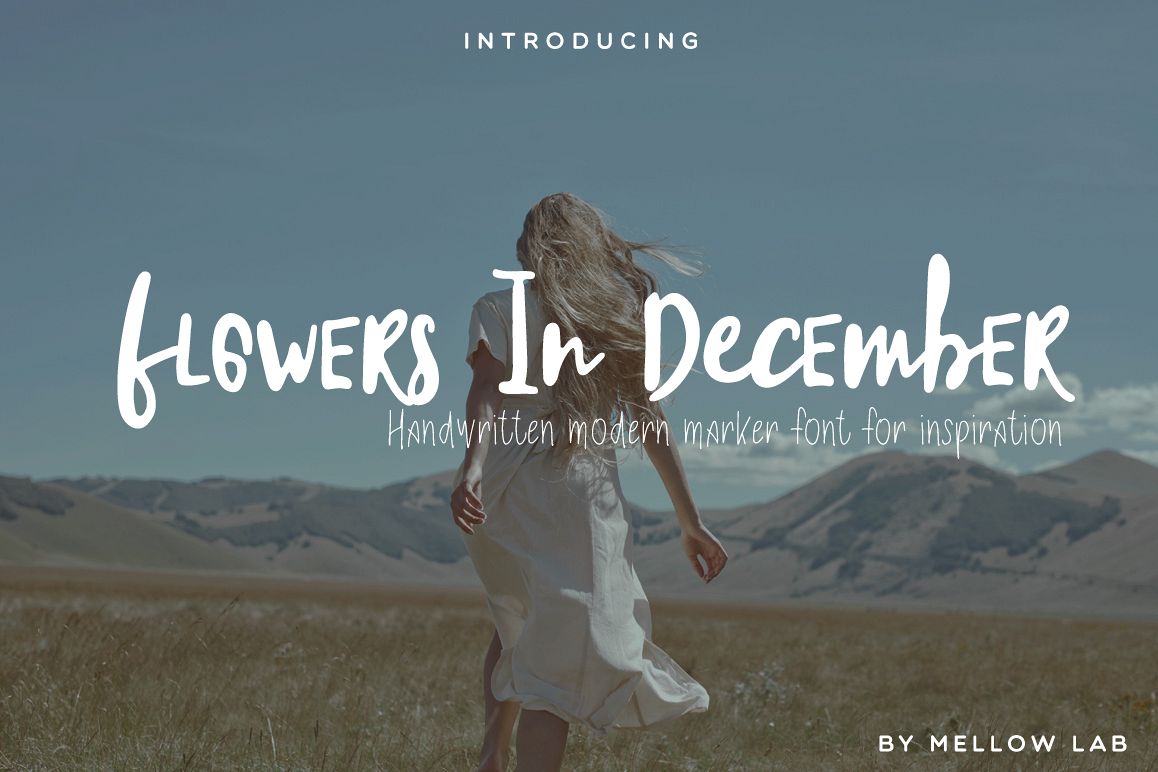
Flowers In December Font Duo
A new fresh handmade modern font. Very suitable for greeting cards, branding materials, business cards, quotes, posters, and more!
• Flowers In December Script
• Flowers In December Sans
• Basic Latin A-Z and a-z
• Symbols
• Alternates a-z